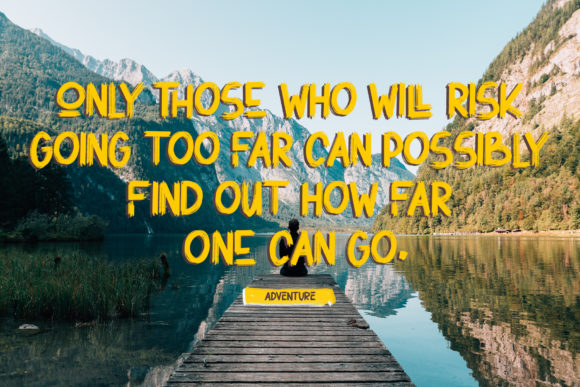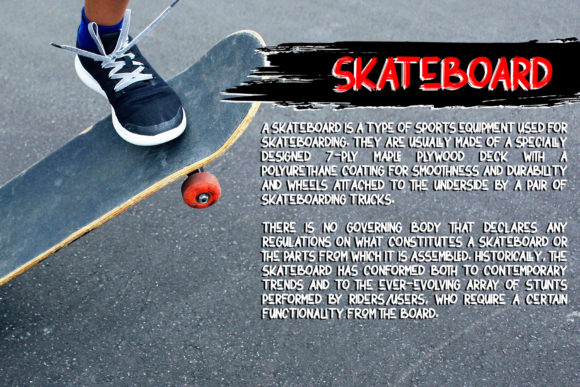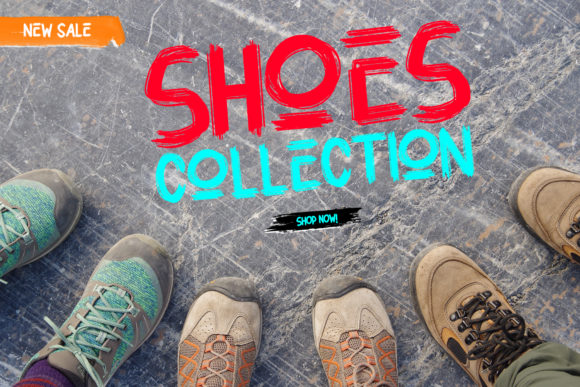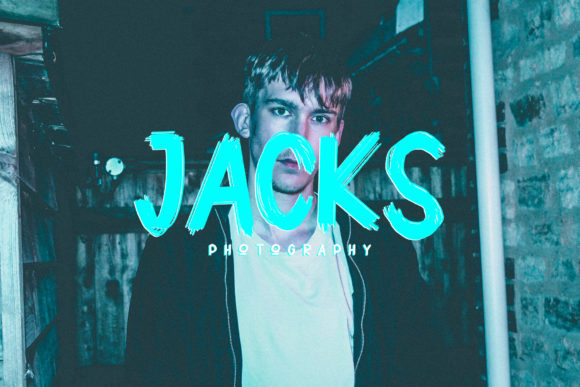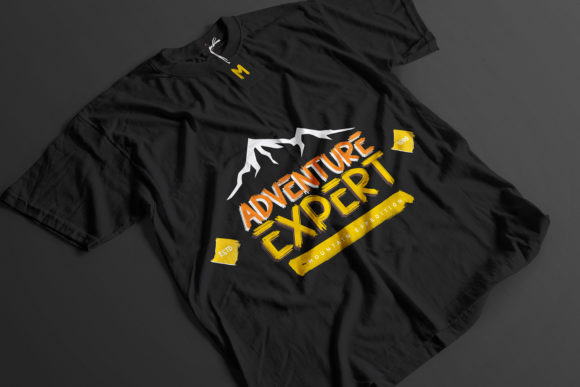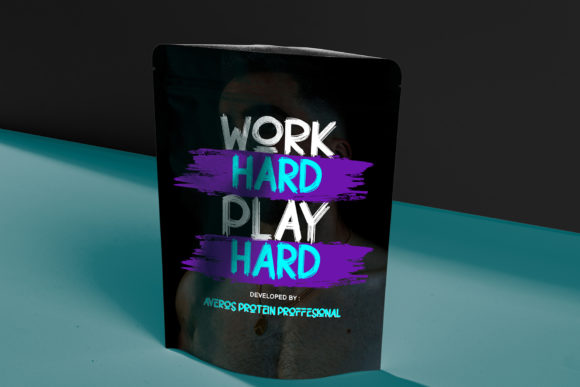
Bromptown Font: Elevate Your Designs with a Stylish Handwritten Brush Script
Are you looking for a font that can add a touch of elegance and sophistication to your designs? Look no further than Bromptown, a beautiful handwritten brush script font that’s perfect for creating stunning logos, signage, social media graphics, blog posts, styled quotes, packaging, and more!
What is Bromptown Font?
Bromptown is a stylish, handwritten brush script font that’s designed to help you create beautiful and eye-catching designs. With its elegant and flowing strokes, Bromptown is perfect for adding a personal touch to your projects. Whether you’re a designer, crafty DIY enthusiast, or social media influencer, Bromptown is the perfect font for you.
Key Features of Bromptown Font
Bromptown font comes with a range of exciting features that make it perfect for a variety of design projects. Some of its key features include:
- Uppercase multilingual letters: Bromptown includes a wide range of uppercase letters that can be used to create beautiful and unique designs.
- Punctuation and numbers: The font also includes punctuation marks and numbers, making it perfect for creating styled quotes, social media graphics, and more.
- Handwritten brush script: Bromptown’s handwritten brush script style gives it a personal and elegant feel that’s perfect for creating beautiful designs.
Uses of Bromptown Font
Bromptown font is incredibly versatile and can be used for a wide range of design projects, including:
- Logos: Bromptown is perfect for creating beautiful and unique logos that will help your brand stand out.
- Signage: The font’s elegant and flowing strokes make it perfect for creating stunning signage that will grab attention.
- Social media graphics: Bromptown can be used to create eye-catching social media graphics that will help you engage with your audience.
- Blog posts: The font can be used to add a personal touch to your blog posts and make them more visually appealing.
- Styled quotes: Bromptown is perfect for creating styled quotes that will add a touch of elegance to your designs.
- Packaging: The font can be used to create beautiful and unique packaging that will help your products stand out.
Why Choose Bromptown Font?
So why choose Bromptown font for your design projects? Here are just a few reasons why:
- Unique and elegant style: Bromptown’s handwritten brush script style gives it a unique and elegant feel that’s perfect for creating beautiful designs.
- Versatile: The font is incredibly versatile and can be used for a wide range of design projects.
- Multilingual support: The font includes multilingual letters, making it perfect for designers who work with clients from around the world.
Tips for Using Bromptown Font
Here are a few tips for using Bromptown font in your design projects:
- Experiment with different colors: Bromptown looks great in a wide range of colors, so don’t be afraid to experiment and find the perfect color for your design.
- Use it with other fonts: Bromptown can be paired with other fonts to create stunning and unique designs.
- Pay attention to spacing: Make sure to pay attention to spacing when using Bromptown, as it can affect the overall look and feel of your design.
Bromptown font is a beautiful and elegant handwritten brush script font that’s perfect for creating stunning designs. With its unique and flowing strokes, multilingual letters, punctuation, and numbers, Bromptown is the perfect font for designers, crafty DIY enthusiasts, and social media influencers. Whether you’re looking to create a logo, signage, social media graphics, or more, Bromptown is the perfect choice.